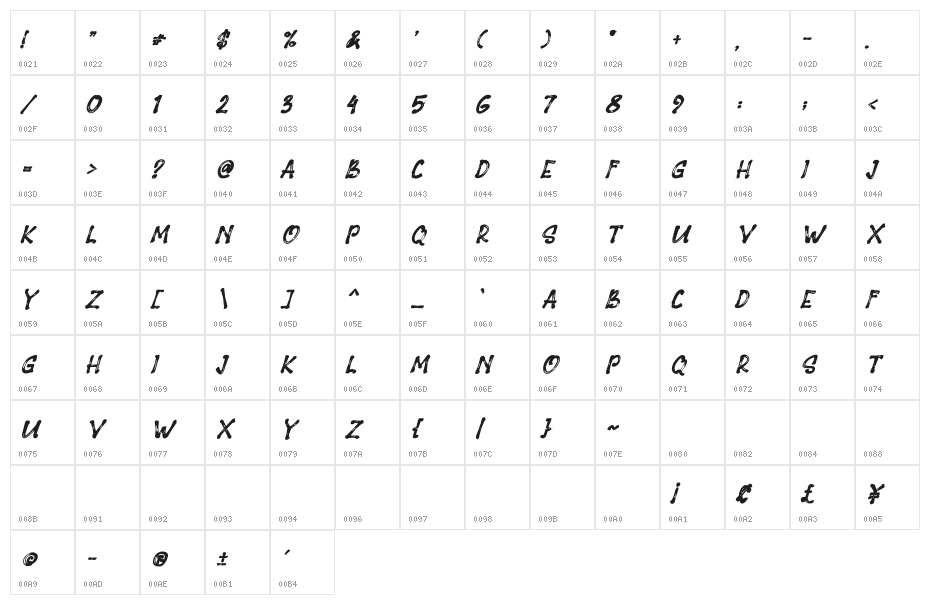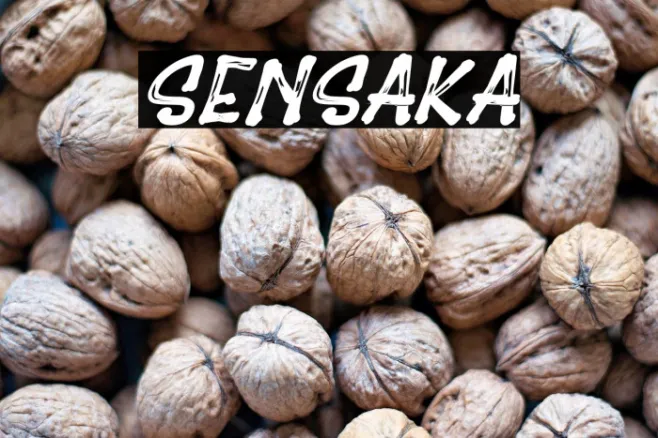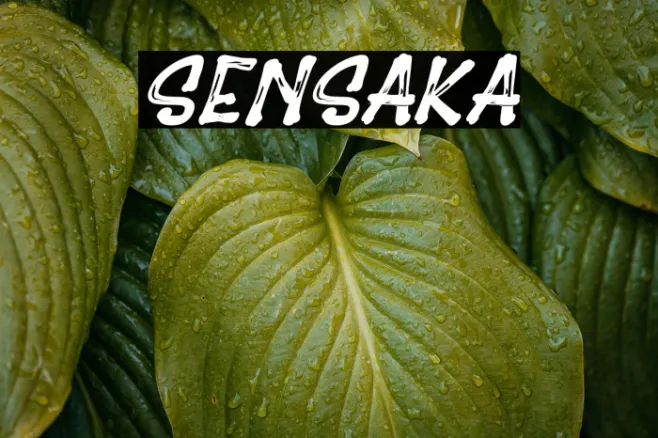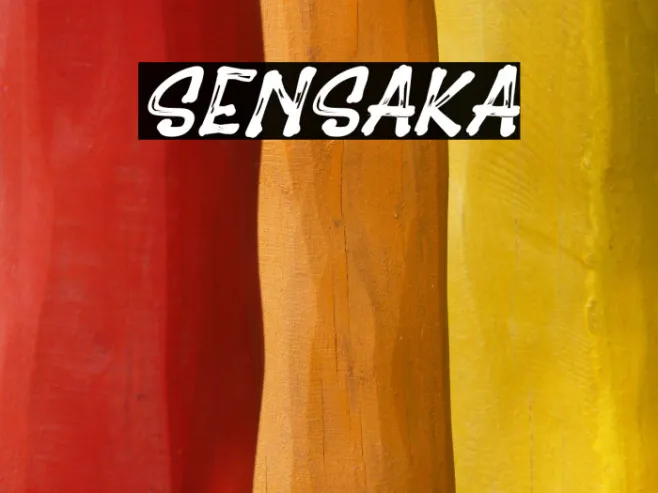
Sensaka Font
Sensaka Description
This font features a bold and dynamic brush script style, characterized by its energetic and fluid strokes. The letters are slightly slanted, giving a sense of motion and liveliness. The uppercase and lowercase letters maintain a consistent style, with some variations in stroke thickness that add to its expressive nature. The numbers and special characters follow the same aesthetic, ensuring a cohesive look across all text elements. This font's boldness and unique style make it stand out, perfect for projects that require a touch of creativity and flair.